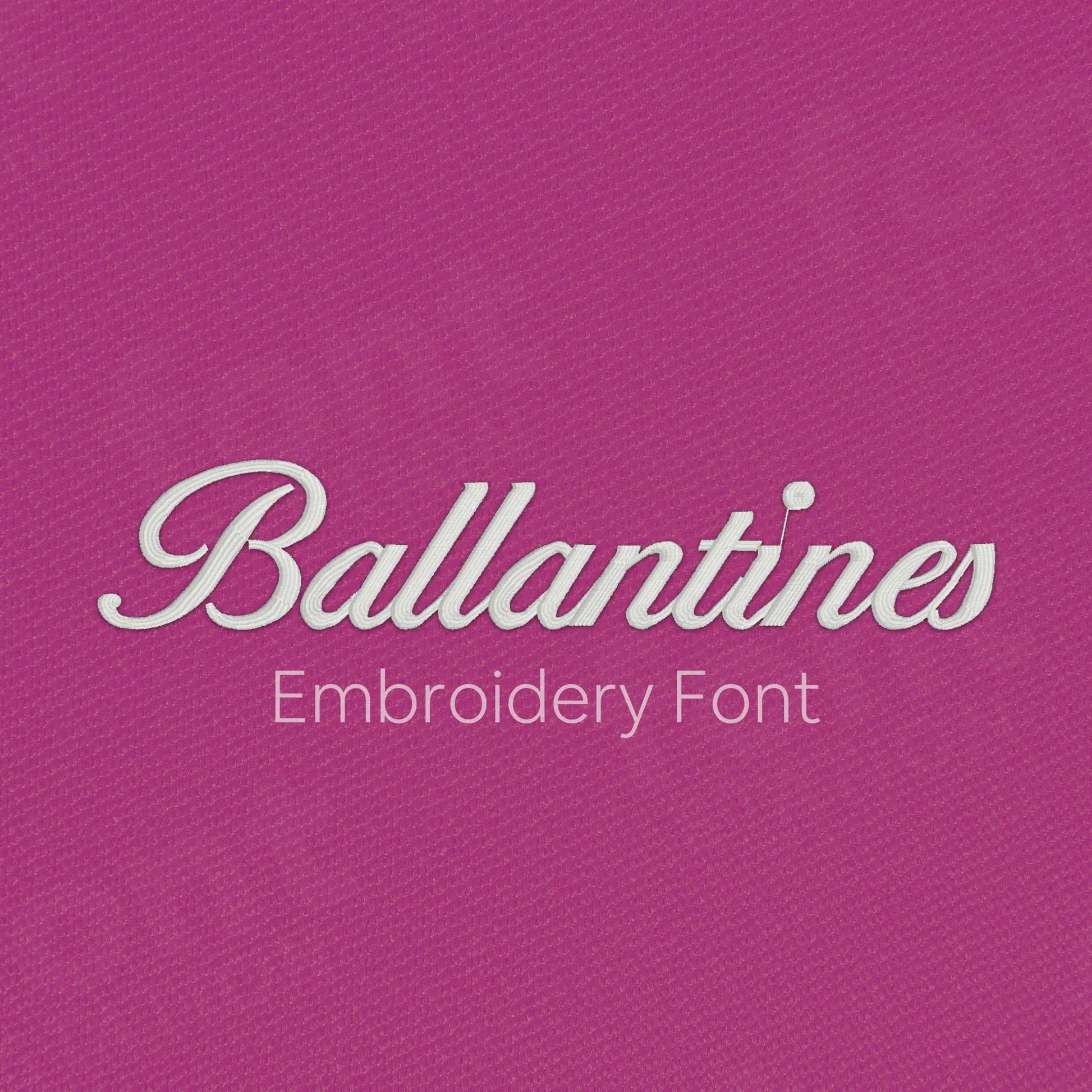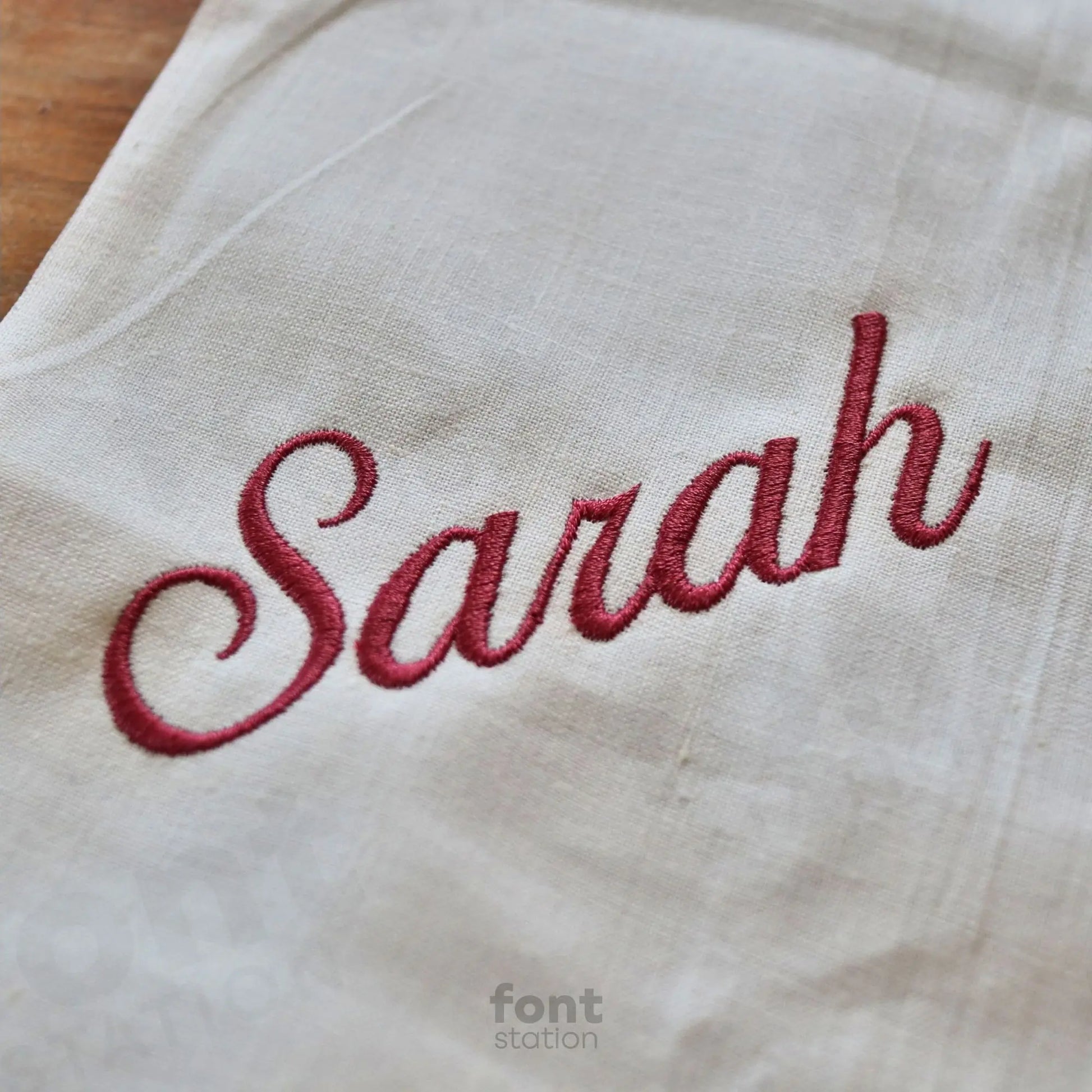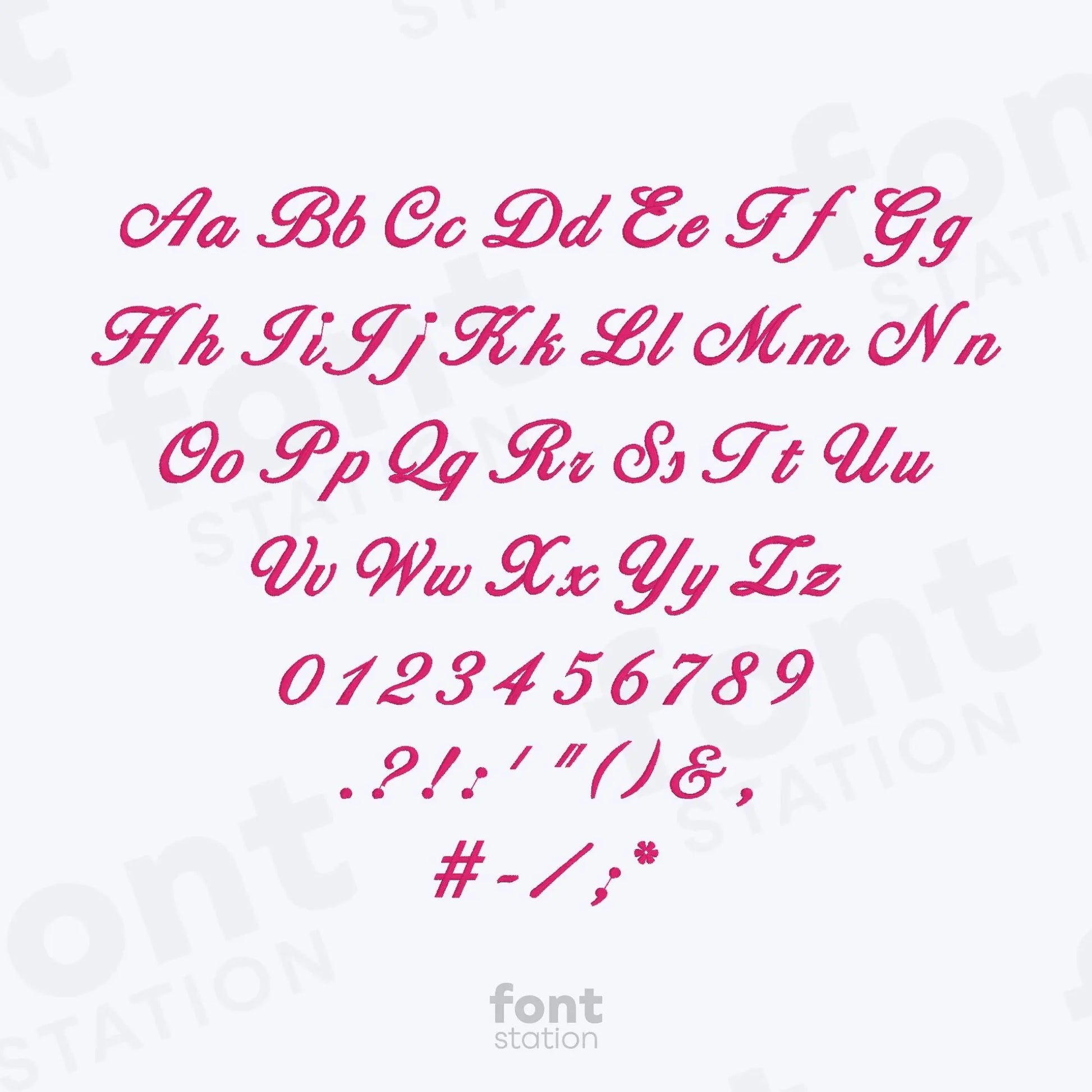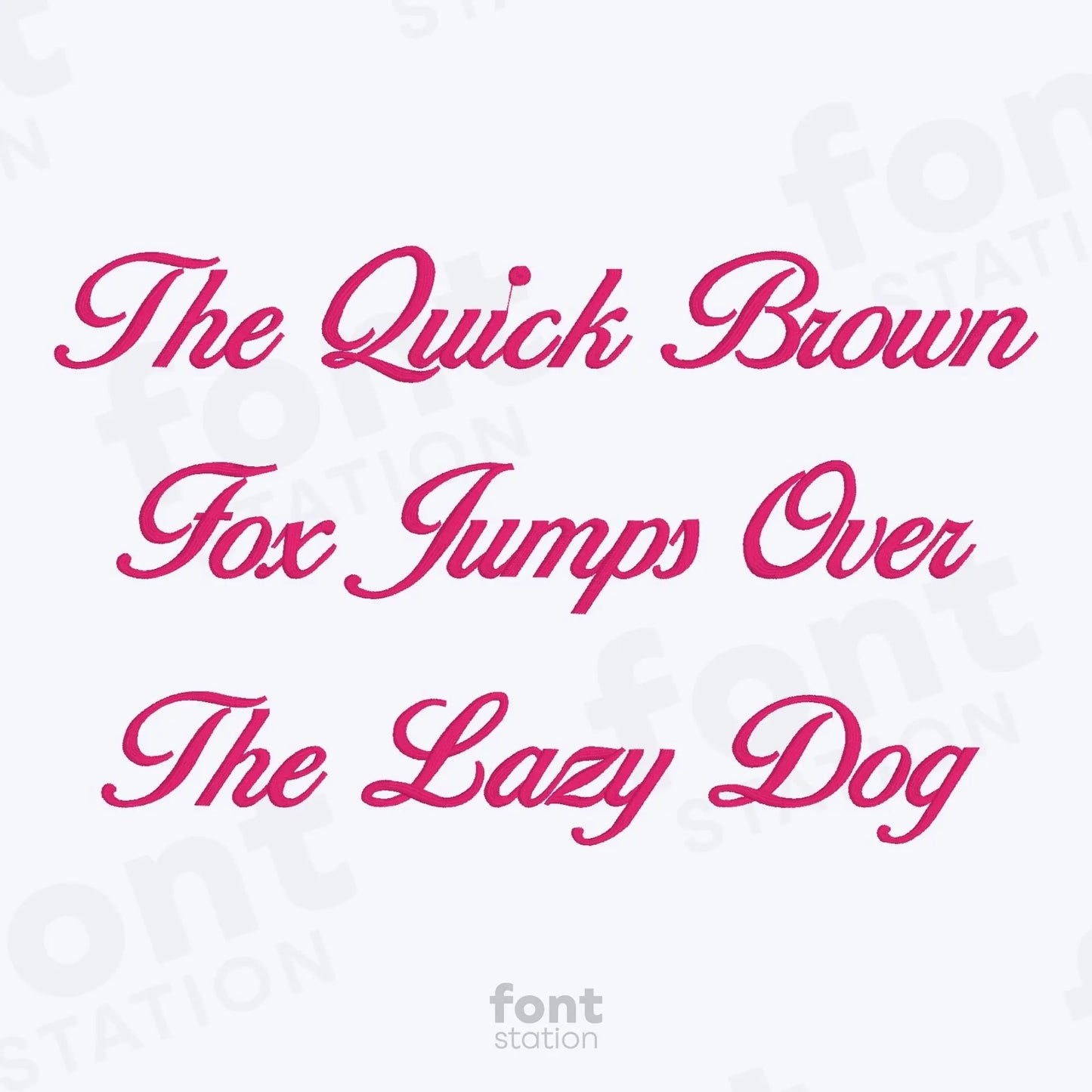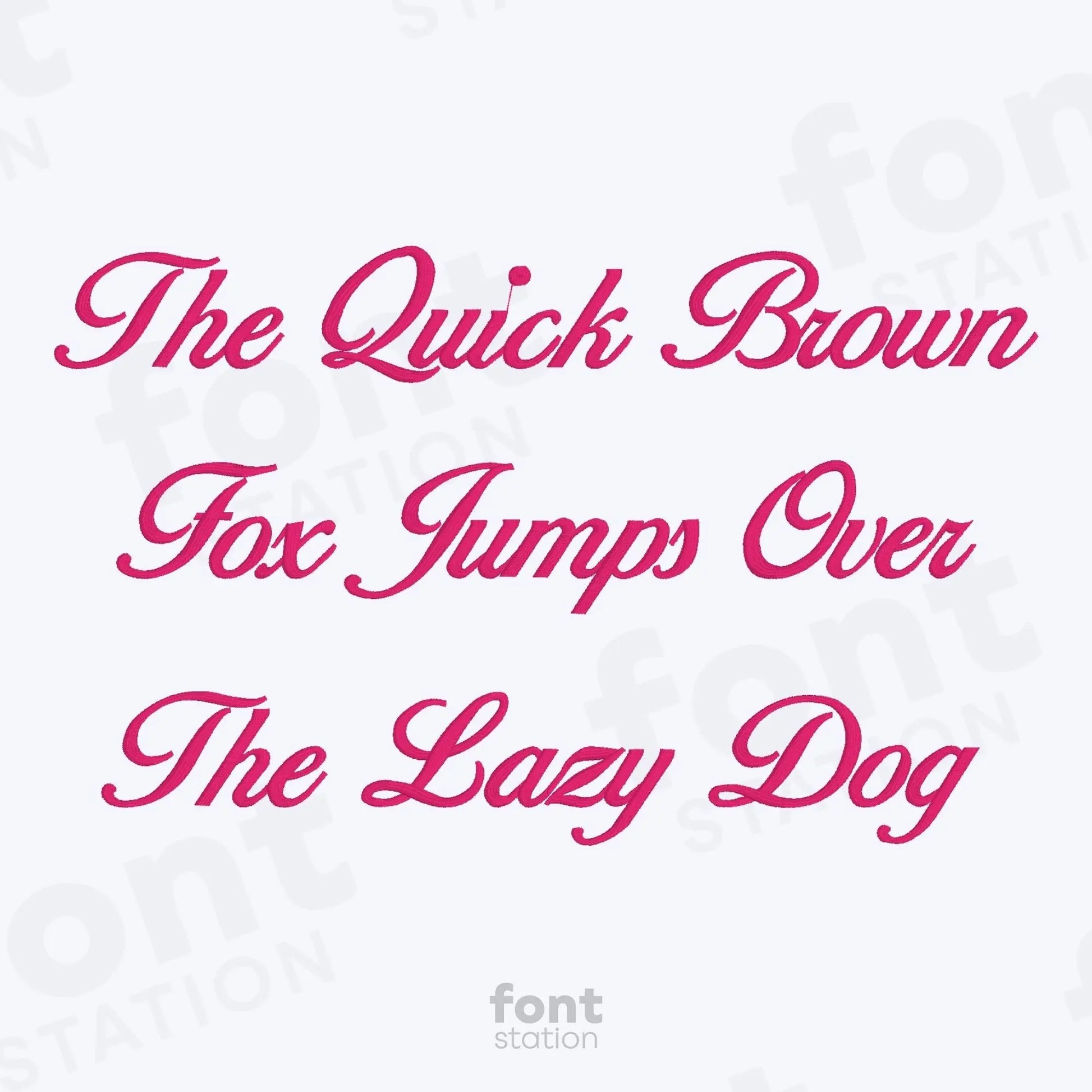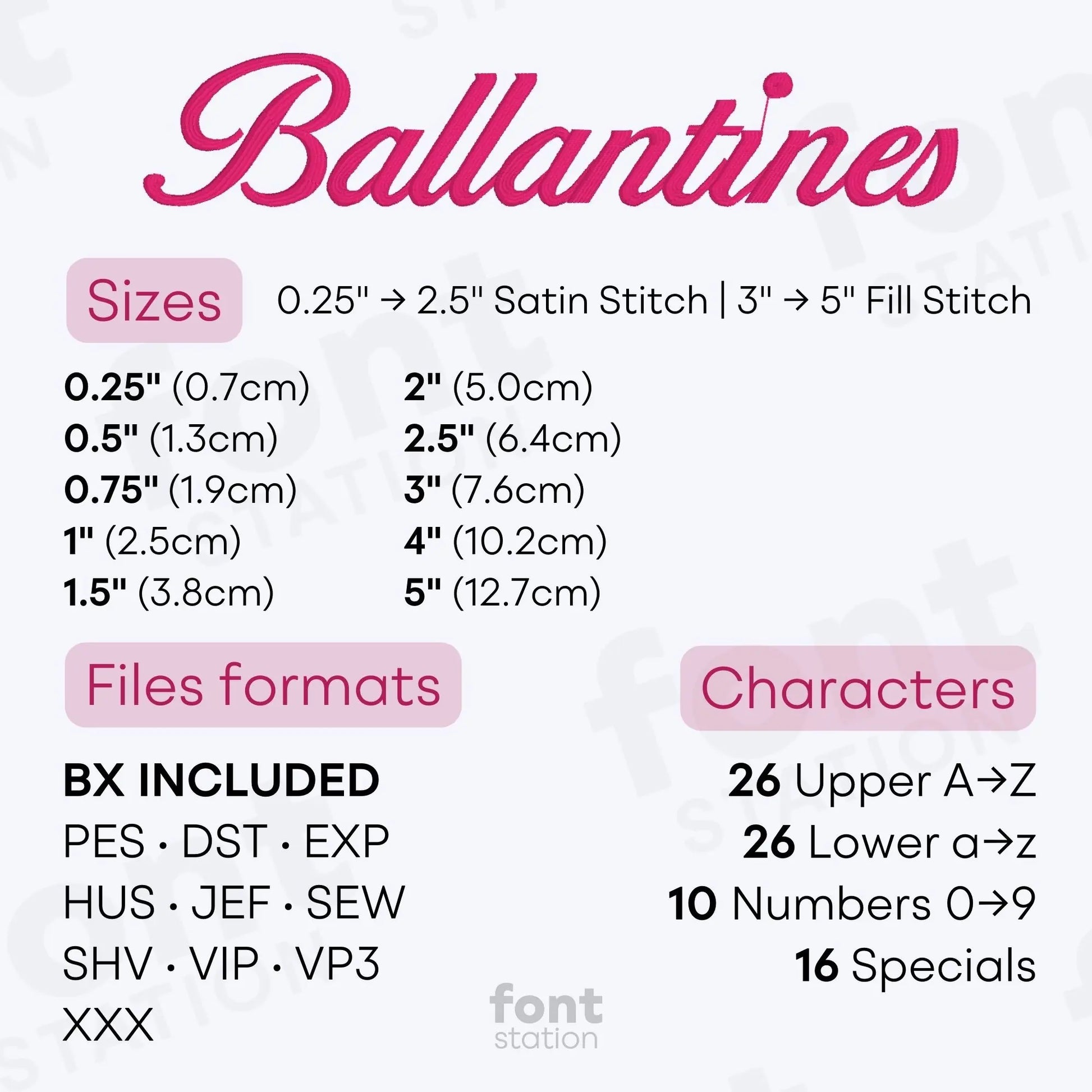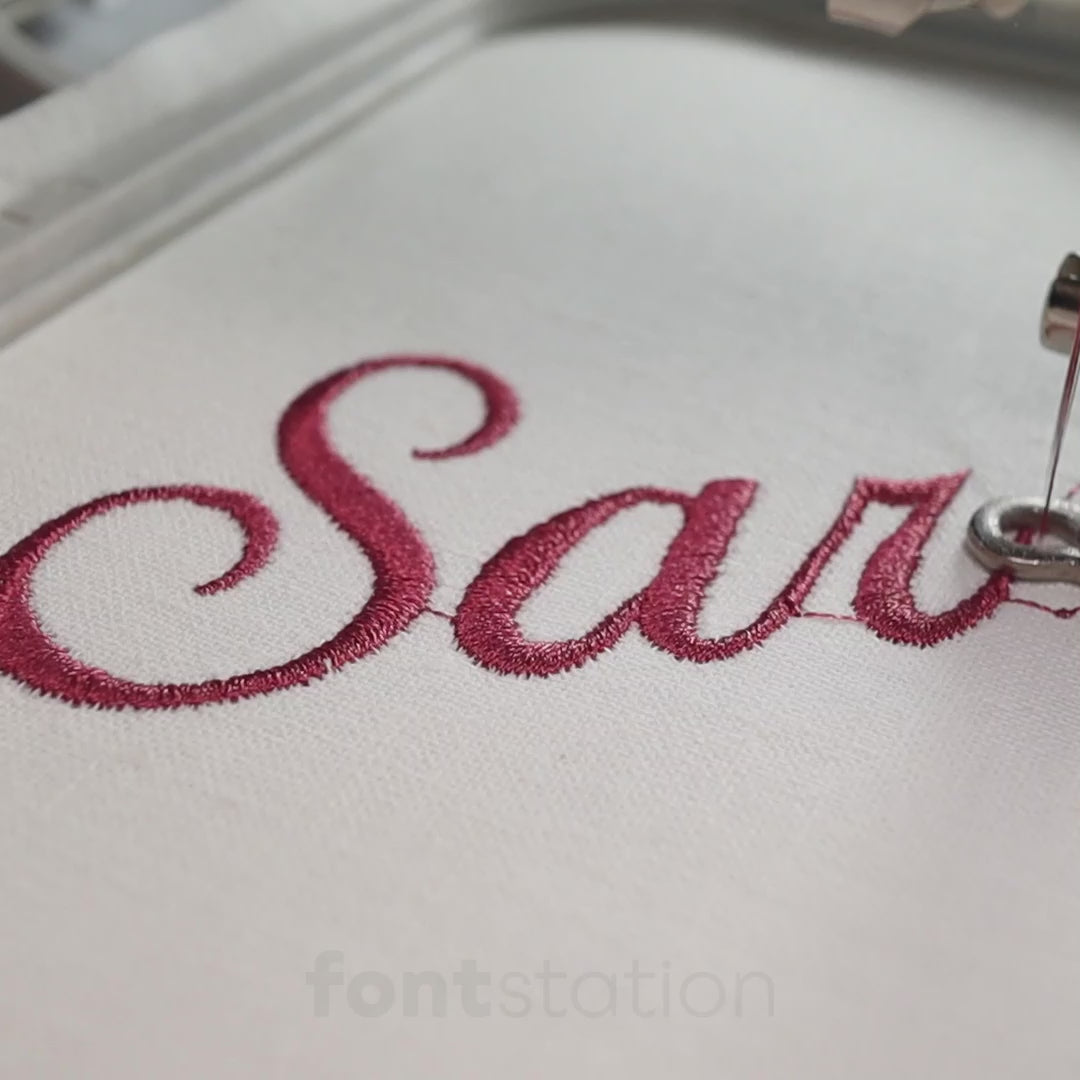
Ballantines Embroidery Font
About the Ballantines Embroidery Font
Characters: 26 uppercase, 26 lowercase, 10 numbers, and symbols & ' * @ : , - . ! # ( ) ? " ; /
Ballantines Embroidery Font - Elegant Cursive Alphabet for Stylish Machine Embroidery
The Ballantines embroidery font is a beautifully digitized elegant cursive alphabet designed to bring classic style and sophistication to your embroidery projects. Featuring graceful, flowing letterforms, this versatile embroidery font is perfect for names, monograms, invitations, personal gifts, and more. Whether you're stitching on linens, garments, or keepsakes, the Ballantines embroidery letters provide smooth, professional-quality results on most fabrics.